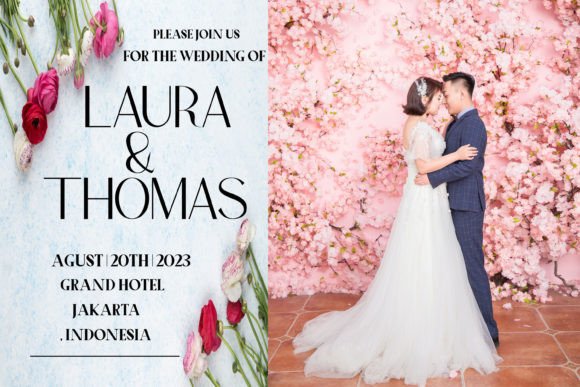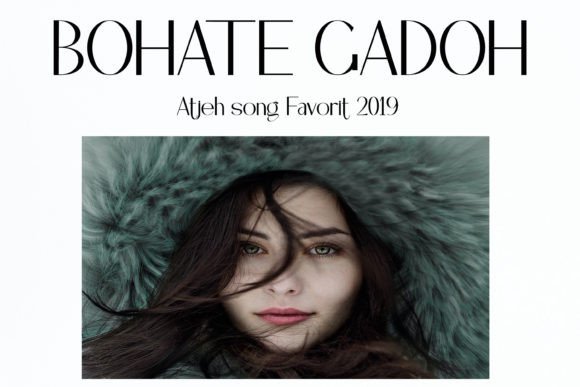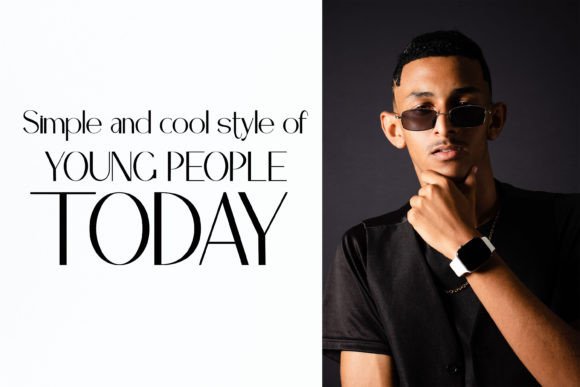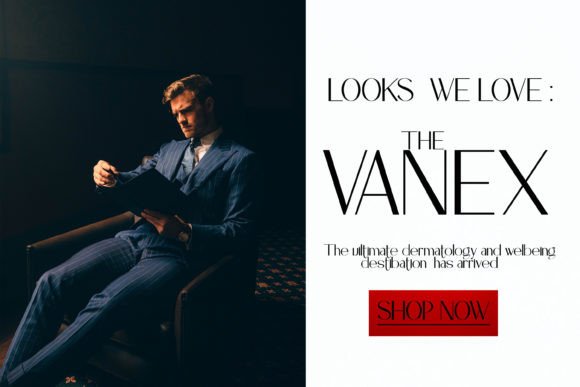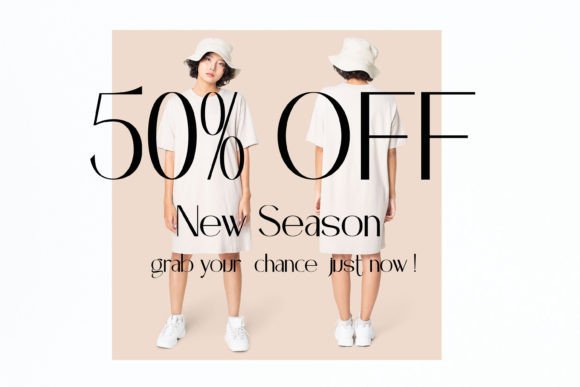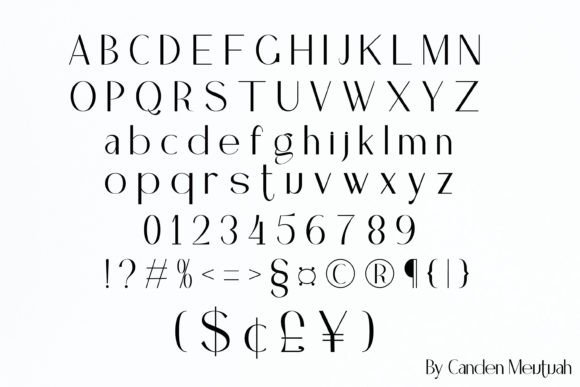
Introduction to Luxiana Font
Luxiana Serif is a modern serif font packaged in a modern and classy style.
A new elegant serif font that will add a touch of luxury and style to your projects This is a very versatile font that works well in both large and small sizes.